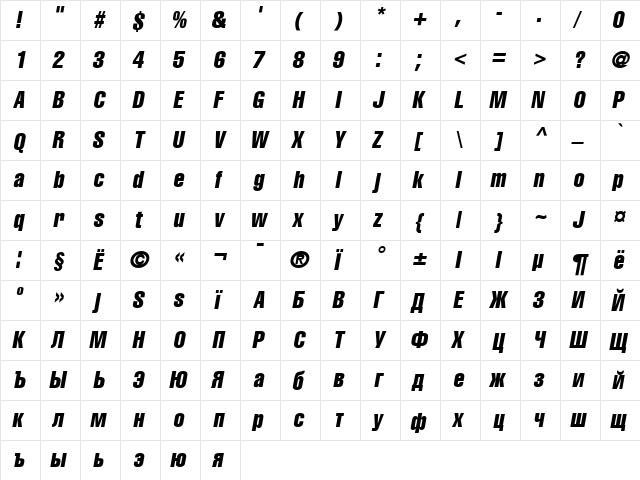
AG Letterica Compr-Oblique Medium
Design Context for AG Letterica Compr-Oblique Typeface
AG Letterica Compr-Oblique is a composed and adaptable typeface that performs quietly and consistently across a wide range of design contexts. The dynamic lean of this cut emphasises speed and emphasis in any layout.
Pro Tip: Try AG Letterica Compr-Oblique for annotation and caption copy alongside an upright companion — the contrast in angle creates a dynamic but ordered typographic system.